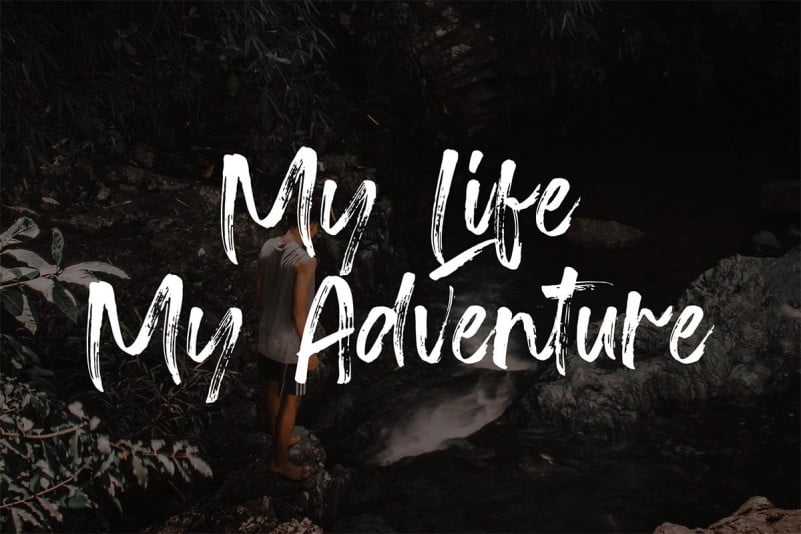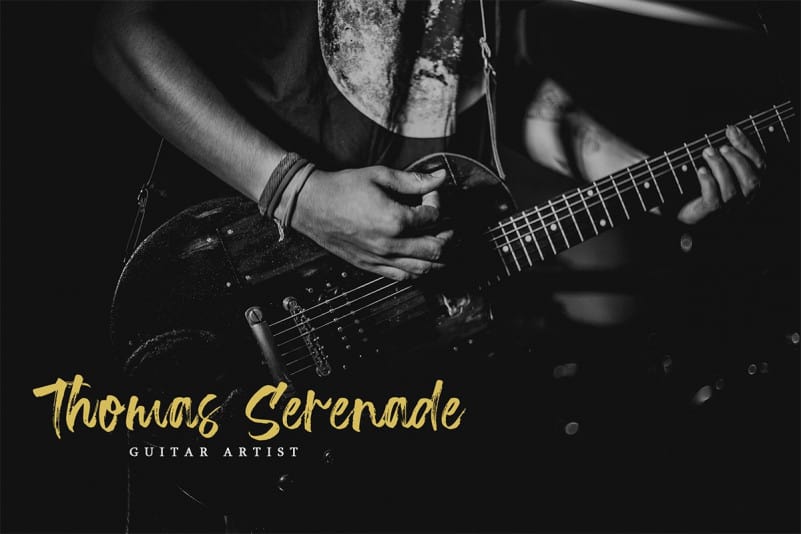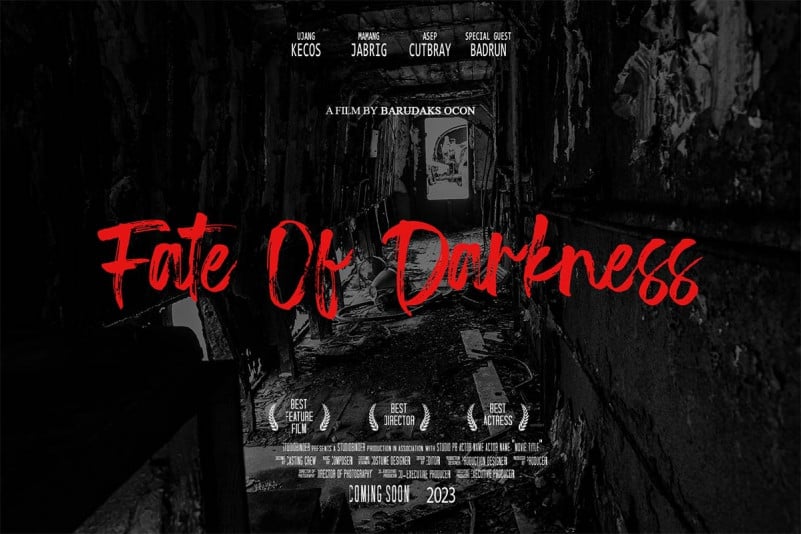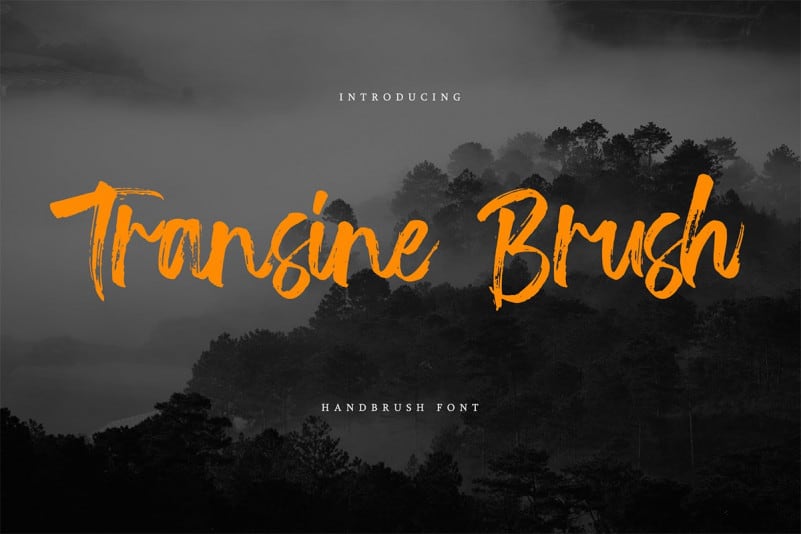
Transine Brush Font
Introducing, Transine Brush Font is a Stylish Modern Brush Font with Casual Style. Made from font designer named Vztype. Transine is a Stylish Modern Brush Font with Casual Style that is absolutely great for your next creative project such as logos, printed quotes, invitations, cards, product packaging, headers, Logotype, Letterhead, Poster, Apparel Design, Label, and etc.